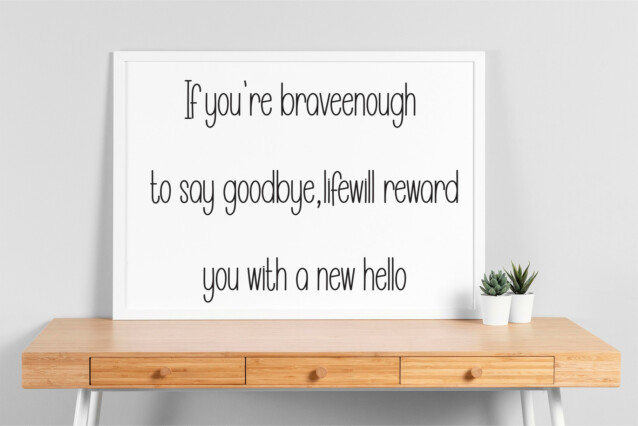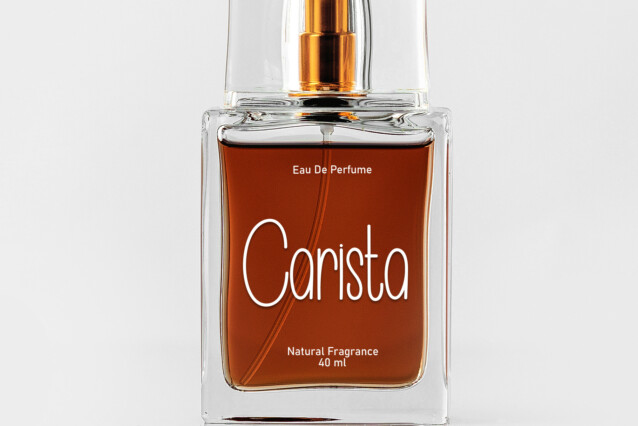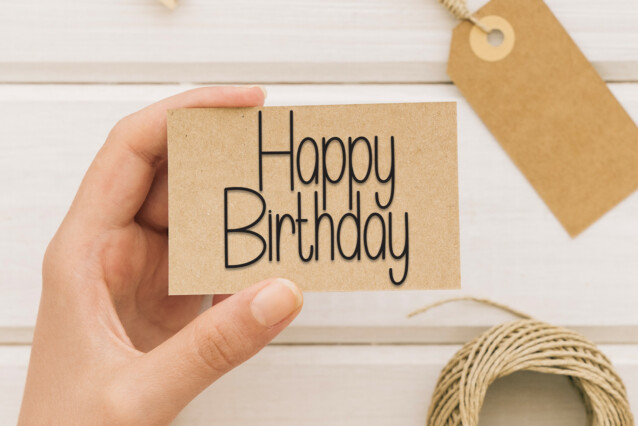
Happy Moment Display Font
Happy Moment Display Font is a playful and charming script font. It features flowing, cursive letters that bring a joyful and personal touch to any text. Perfect for invitations, cards, and anything that needs a warm, friendly feel.